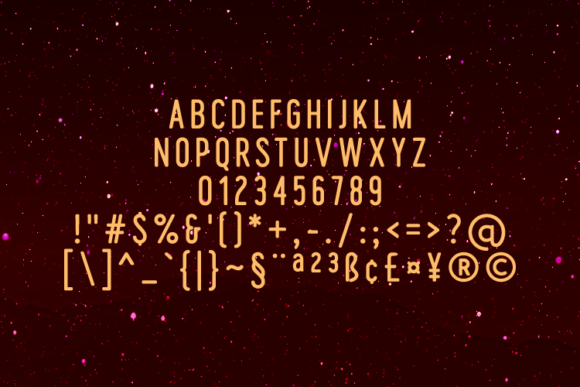
Cynzia Medium Font: A Harmonious Blend of Geometric and Rounded Elements
In the world of typography, fonts play a crucial role in conveying messages, evoking emotions, and creating visual identities. For designers and crafters, finding the perfect font can be a daunting task. However, if you’re looking for a typeface that combines geometric precision with rounded softness, look no further than the Cynzia Medium Font. This condensed geometric sans serif font is a unique and versatile choice that can elevate a wide range of designs.
The Inspiration Behind Cynzia
Cynzia’s design is rooted in geometric sans serifs, with a twist. The font’s creator drew inspiration from circular forms on the tops and bottoms of characters, giving Cynzia a distinctive moon-like quality. The incorporation of rounded corners adds a touch of warmth and approachability to the font, making it suitable for designs that require a subtle softness. At the same time, the straight sides of the characters provide a sturdy and economical feel, perfect for designs that need a sharper appearance.
Key Features of Cynzia Medium Font
So, what makes Cynzia Medium Font stand out? Here are some of its key features:
- Condensed geometric sans serif: Cynzia’s condensed design makes it perfect for titles, headings, and short paragraphs of text.
- Rounded corners: The rounded corners add a touch of softness to the font, making it suitable for designs that require a friendly and approachable feel.
- Straight sides: The straight sides of the characters provide a sturdy and economical feel, making Cynzia perfect for designs that need a sharper appearance.
- Versatile: Cynzia can be used in a wide range of designs, from digital media to print materials.
Use Cases for Cynzia Medium Font
Cynzia’s unique blend of geometric and rounded elements makes it suitable for a variety of design projects. Here are some use cases:
- Branding and logos: Cynzia’s distinctive design makes it perfect for creating memorable logos and brand identities.
- Headings and titles: Cynzia’s condensed design and rounded corners make it suitable for headings and titles in digital media, such as websites, blogs, and social media graphics.
- Packaging design: Cynzia’s sturdy and economical feel makes it perfect for packaging design, especially for products that require a modern and sleek look.
- Advertising: Cynzia’s unique design makes it suitable for advertising materials, such as billboards, posters, and flyers.
Tips for Using Cynzia Medium Font
To get the most out of Cynzia Medium Font, here are some tips:
- Pair with contrasting fonts: Cynzia’s unique design makes it perfect for pairing with contrasting fonts to create visual interest.
- Experiment with colors: Cynzia’s versatility makes it suitable for a wide range of color schemes and design styles.
- Use for emphasis: Cynzia’s condensed design makes it perfect for use in headings and titles to draw attention and create emphasis.
In conclusion, Cynzia Medium Font is a unique and versatile typeface that combines geometric precision with rounded softness. Its condensed design, rounded corners, and straight sides make it perfect for a wide range of designs, from branding and logos to headings and titles. Whether you’re a designer or crafter, Cynzia Medium Font is definitely worth considering for your next project.